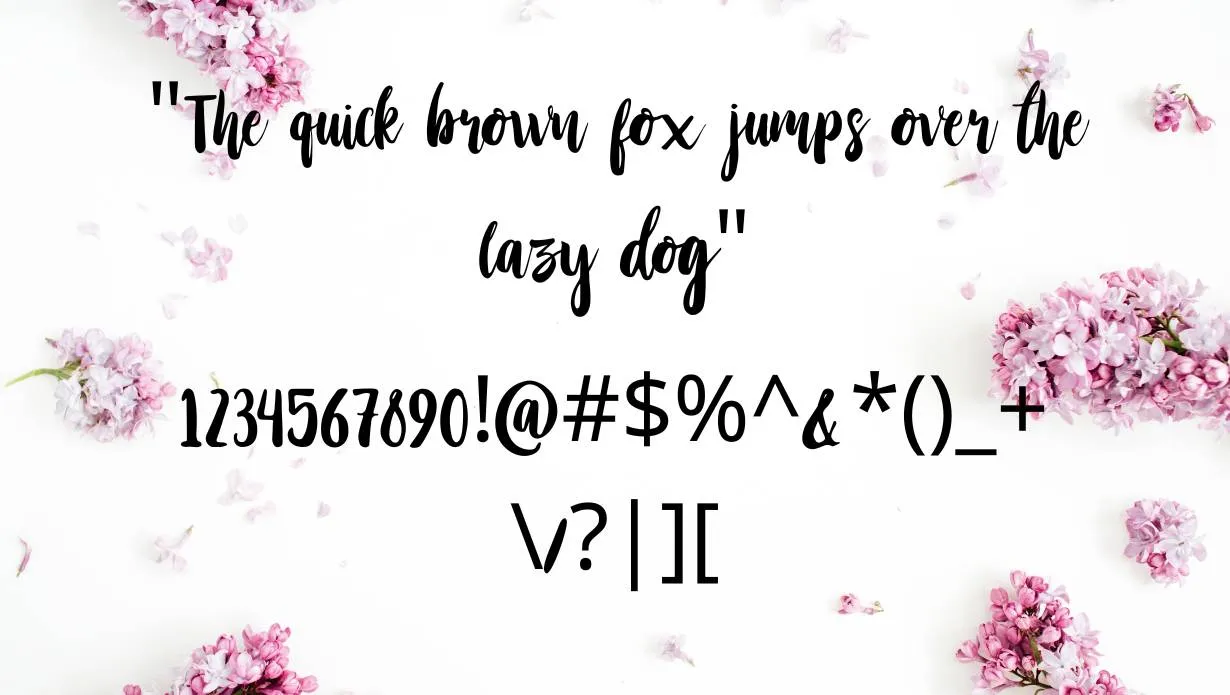
Stay Wildy Font is a fun and whimsical typeface known for its playful and handwritten appearance. Its lively strokes and carefree design make it a popular choice for greeting cards, party invitations, and artistic quotes.
| Name | Stay Wildy Font |
| Designer | Aldy Sidik |